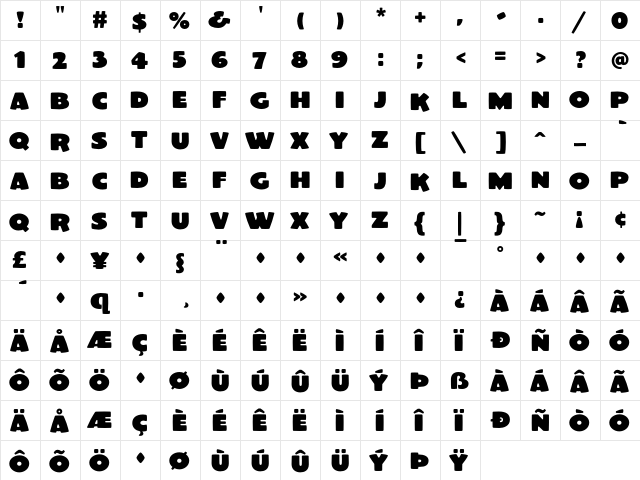
ElGrande Regular
Design Context for ElGrande Typeface
ElGrande takes a measured approach to typography — its balanced proportions and neutral character make it a reliable workhorse for both digital and print work.